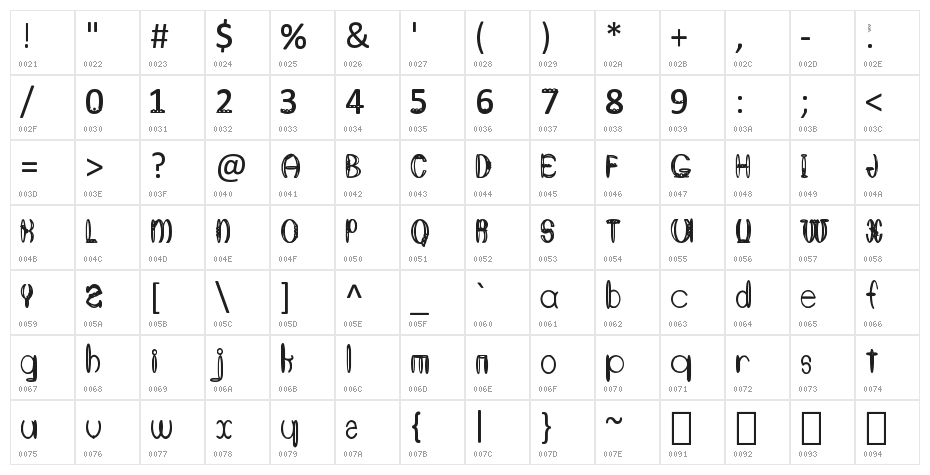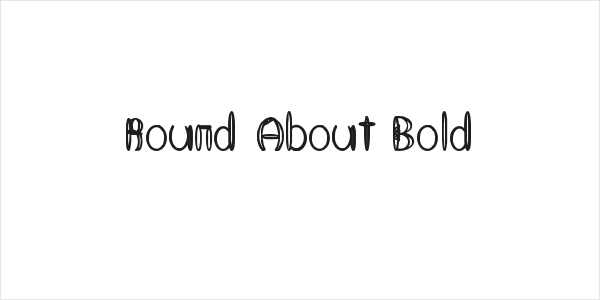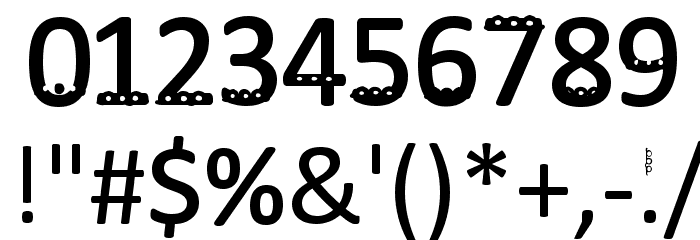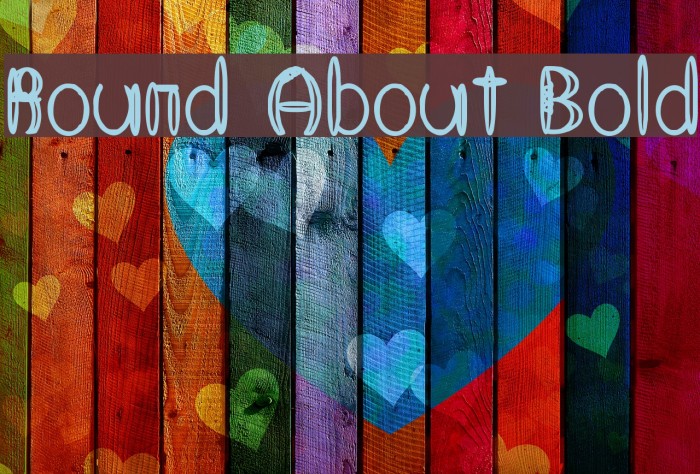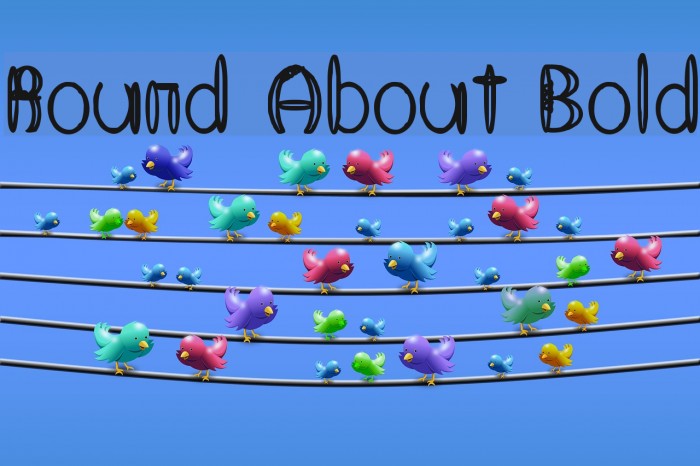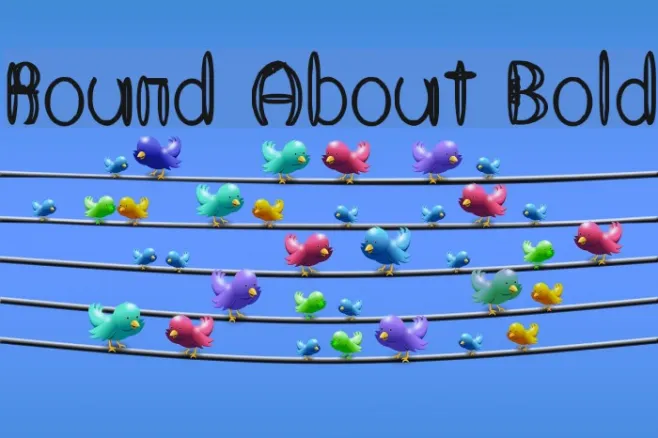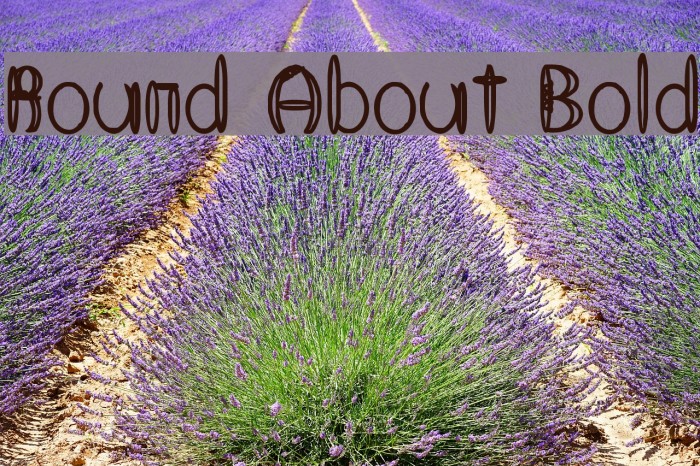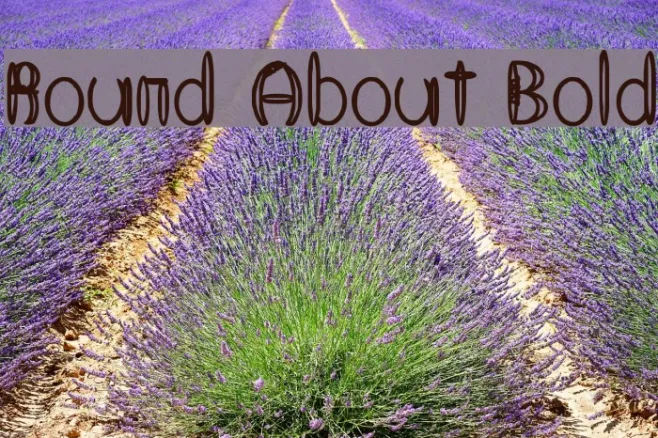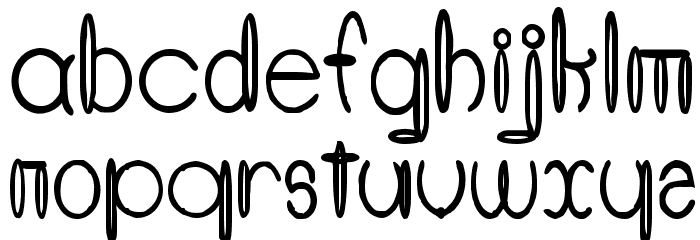
Round About Bold Font
Round About Bold Description
This playful and whimsical font features bold, rounded characters with unique cut-out details that add a sense of fun and creativity. The uppercase letters are particularly distinctive, with varying thicknesses and circular motifs that create a lively appearance. The lowercase letters maintain a consistent style, with smooth curves and a friendly demeanor. Numbers and special characters are equally bold and engaging, making them suitable for attention-grabbing designs. The overall design is both modern and decorative, perfect for projects that require a touch of personality and flair.
| Overall Style | Playful, Modern, Decorative |
| Proposed Projects | Ideal for children's books, playful branding, party invitations, and creative posters. |